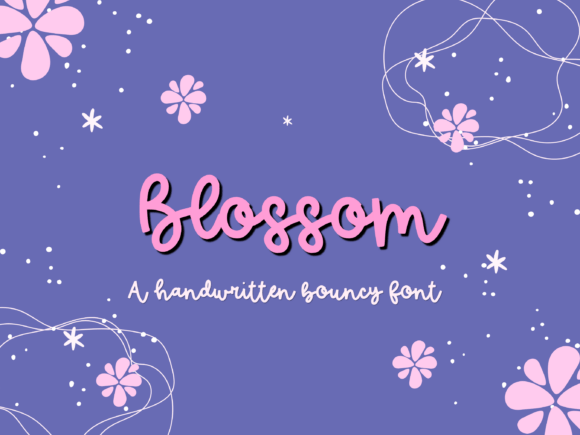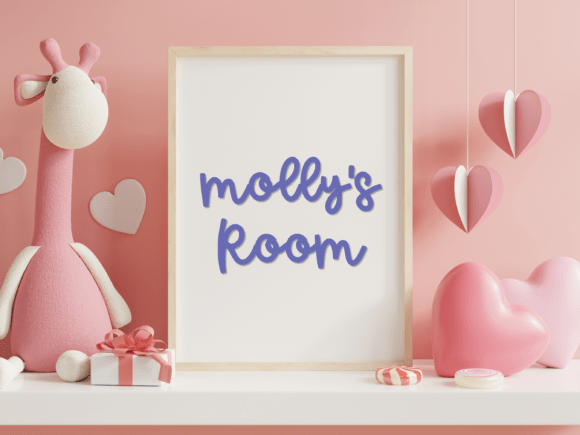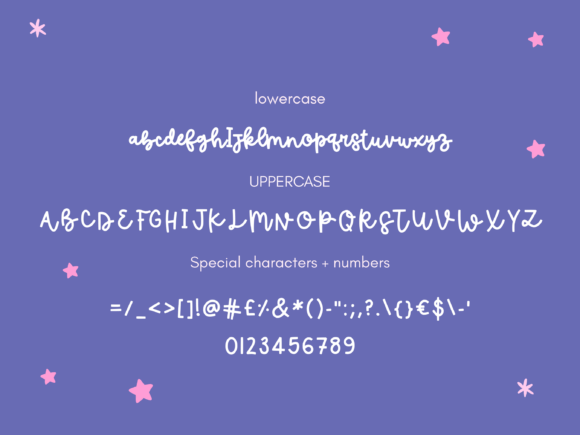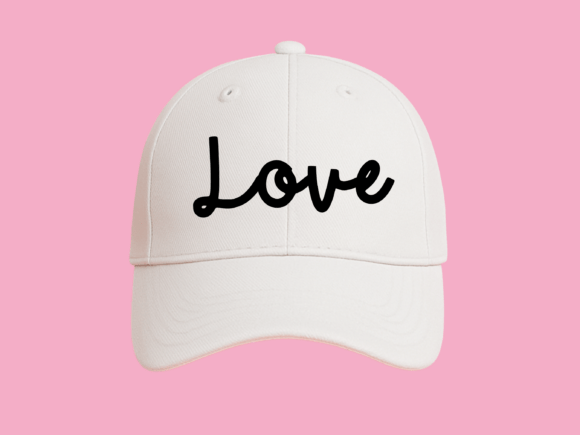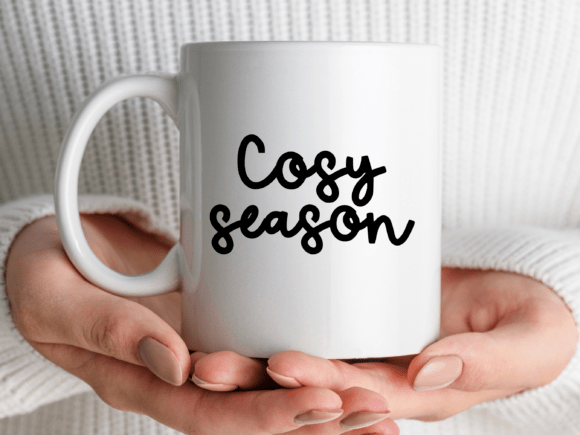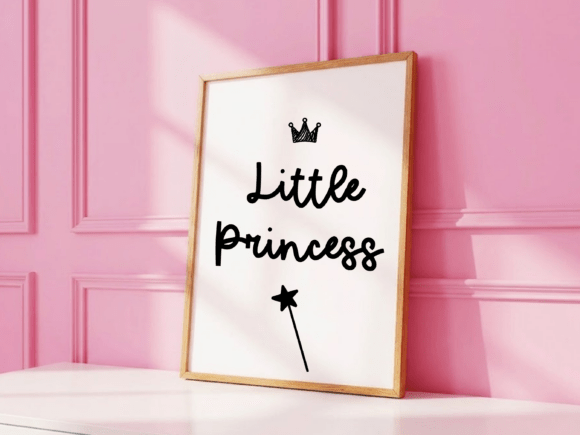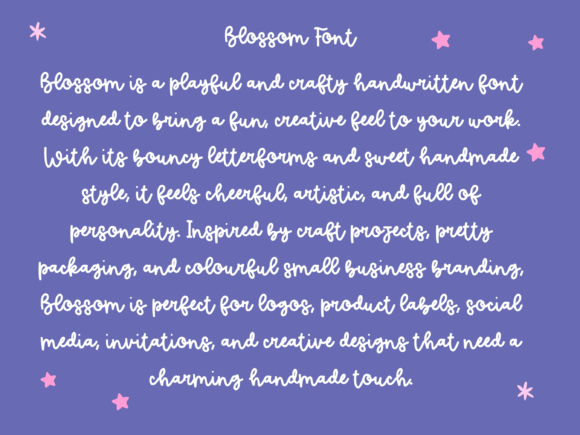
Blossom Script Fonts
Unleash a sense of unbridled joy with Blossom, a gestural typeface that celebrates the spontaneous beauty of the human hand. Defined by a kinetic, dancing baseline and an organic silhouette, this font rejects the rigid in favor of the radiant. It serves as a vibrant tool for designers looking to infuse brand identities, tactile packaging, or bespoke stationery with an authentic, upbeat personality. From spirited digital content to whimsical interior prints, Blossom transforms every character into a celebration of artisanal charm.